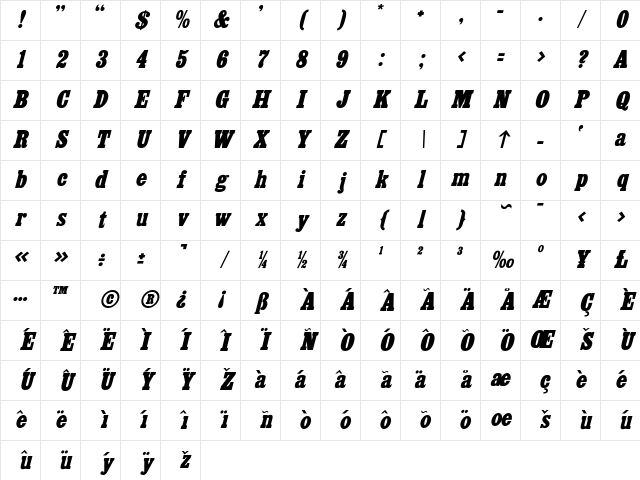
FatAmerican_Italic Normal Free Font
FatAmerican_Italic Normal
Design Context for FatAmerican_Italic
FatAmerican_Italic is a composed and adaptable typeface that performs quietly and consistently across a wide range of design contexts. The slanted form adds forward momentum and visual energy.
Pro Tip: Use FatAmerican_Italic for emphasis, pull quotes, and subheadings where its slanted energy can add rhythm to the layout.